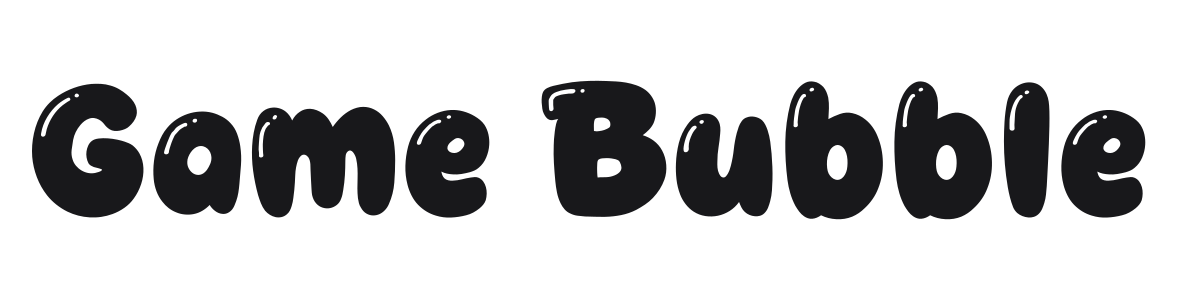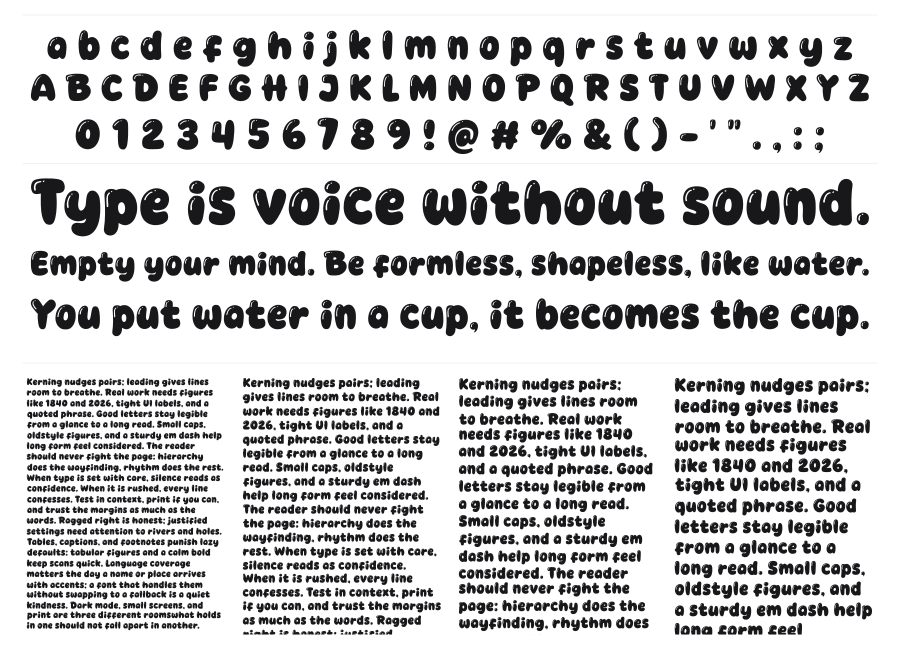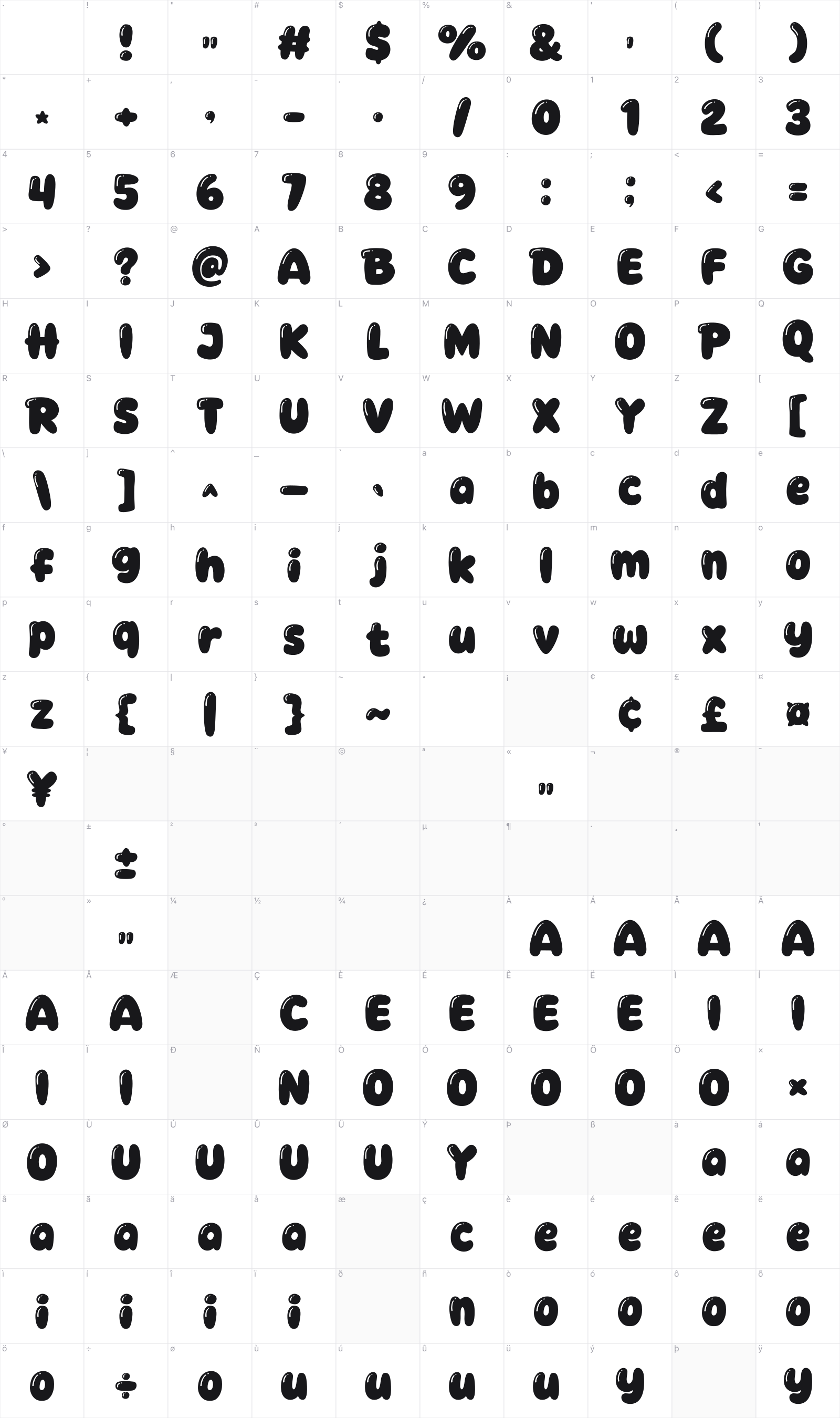
Game Bubble
Game Bubble is a chunky, inflated bubble-letter font with a playful, cartoon energy. Every character is built from thick, rounded strokes that seem to puff outward, with subtle highlight shapes that add a glossy, almost three-dimensional feel. It brings an unmistakable gaming and comic book personality to titles, logos, and packaging.